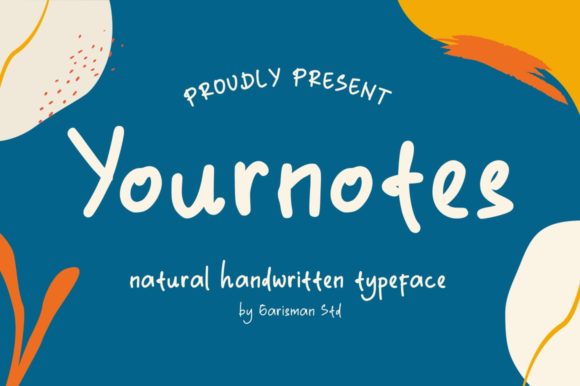
Step into the world of Yournotes Font, a display font that captivates with its allure. Designed by Garisman Studio, this font family invites you to explore a world of creative possibilities. Its organic curves and stylish demeanor add a touch of elegance to your designs, making them stand out from the ordinary.
Indulge in endless design occasions with Yournotes Font. Whether it's creating eye-catching headlines, designing inviting posters, or adding charm to social media posts, this display font rises to the challenge. Its effortless beauty sparks inspiration, transforming your words into works of art.
Embrace the versatility of Yournotes Font. With its enchanting style, it seamlessly complements a variety of design projects. From branding and packaging to invitations and flyers, this font family is your creative companion. Let Yournotes Font elevate your designs, capturing attention and leaving a lasting impression.
Unleash the power of Yournotes Font today. Download this magnificent display font and embark on a journey of captivating design. Its organic beauty and stylish aura will inspire you to create designs that resonate with your audience.
Don't settle for ordinary fonts. Choose Yournotes Font and elevate your designs to new heights. Experience the magic of this display font and transform your creative visions into stunning realities.